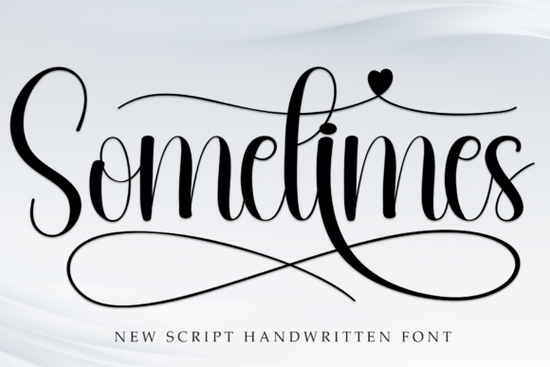
If you’ve been searching for a handwritten font that feels personal, warm, and just the right amount of playful, you might want to take a closer look at Sometimes Font. It’s the kind of typeface that doesn’t shout for attention instead, it quietly adds charm to wedding invites, greeting cards, or even packaging labels. The strokes feel natural, like they were just penned with care, making it especially useful if you’re designing for clients who want something heartfelt but not overly formal.
What makes Sometimes stand out is how effortlessly it fits into both digital and print projects. Whether you’re creating a baby shower invite or branding a small bakery, this font adapts without losing its character. You can pair it with cleaner sans-serifs for contrast or let it shine solo on textured backgrounds. If you like this vibe, you might also enjoy browsing similar styles like Juicy Come, which leans bolder, or Kayla Outline for something more delicate and airy.
Who is this font best suited for?
It’s perfect if you’re:
- A stationery designer working on custom invitations
- A print-on-demand seller looking to add personality to mugs or tote bags
- A small business owner wanting to refresh your logo or social media graphics
- A crafter making handmade cards or scrapbook layouts
The letterforms have enough bounce to feel lively but stay legible even in smaller sizes. That’s rare with script fonts, which often sacrifice readability for style. With Sometimes, you get both. And if you’re pairing fonts, consider balancing it with something structured like Book Signature for headers or body text.
How does it compare to other handwritten fonts?
Not all script fonts are created equal. Some feel stiff, others too chaotic. Sometimes lands in that sweet spot relaxed but intentional. For example, Strawberry has a more bubbly, youthful energy, while Sometimes leans toward timeless warmth. Neither is “better” it just depends on the mood you’re going for.
You’ll notice subtle variations in stroke weight and slight imperfections that mimic real handwriting. These aren’t flaws they’re design choices that make your work feel less machine-made and more human. That’s especially valuable if you’re selling to customers who crave authenticity.
Where can you use it without overdoing it?
Here are a few places where Sometimes really shines:
- Wedding suites place cards, menus, thank-you notes
- Product packaging artisanal jams, candles, soaps
- Social media quotes inspirational or seasonal posts
- Children’s books or nursery decor soft, friendly tone
Avoid using it for long paragraphs or legal disclaimers it’s meant to add flavor, not carry heavy loads. Stick to headlines, accents, or short phrases where its personality can pop.
Any tips for getting the most out of this font?
Yes and they’re simple:
- Adjust tracking slightly sometimes handwritten fonts need a little extra space between letters to breathe.
- Use sparingly one or two words in Sometimes can elevate a whole layout more than slapping it everywhere.
- Layer with textures think watercolor backgrounds, kraft paper, or linen overlays. The font plays well with organic materials.
Is it worth adding to your collection?
If you regularly create designs that need a touch of sincerity whether for clients or your own brand then yes. It’s not a flashy font, but that’s the point. Sometimes, what you need isn’t drama. It’s quiet confidence, warmth, and approachability. And that’s exactly what this one delivers.
- Do you need a font that feels personal but still professional?
- Are you tired of overly rigid or overly messy script fonts?
- Will you use it for short-form text rather than dense paragraphs?
- Do you value subtle imperfections that add character?
If you answered yes to most of those, Sometimes might be the gentle upgrade your toolkit needs.